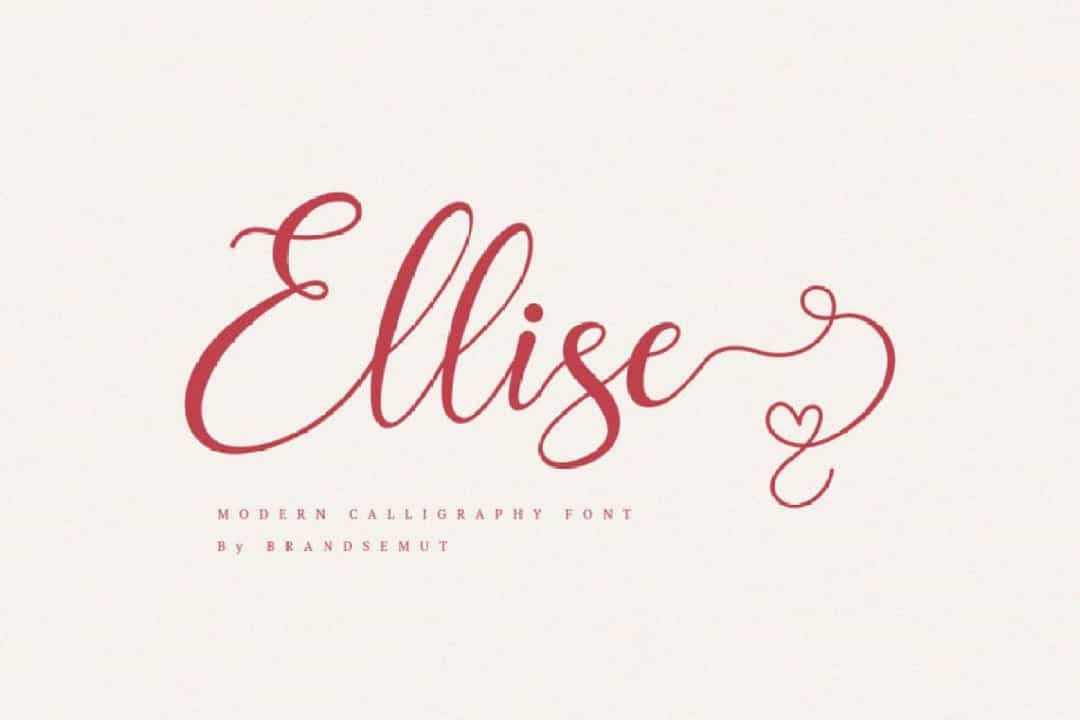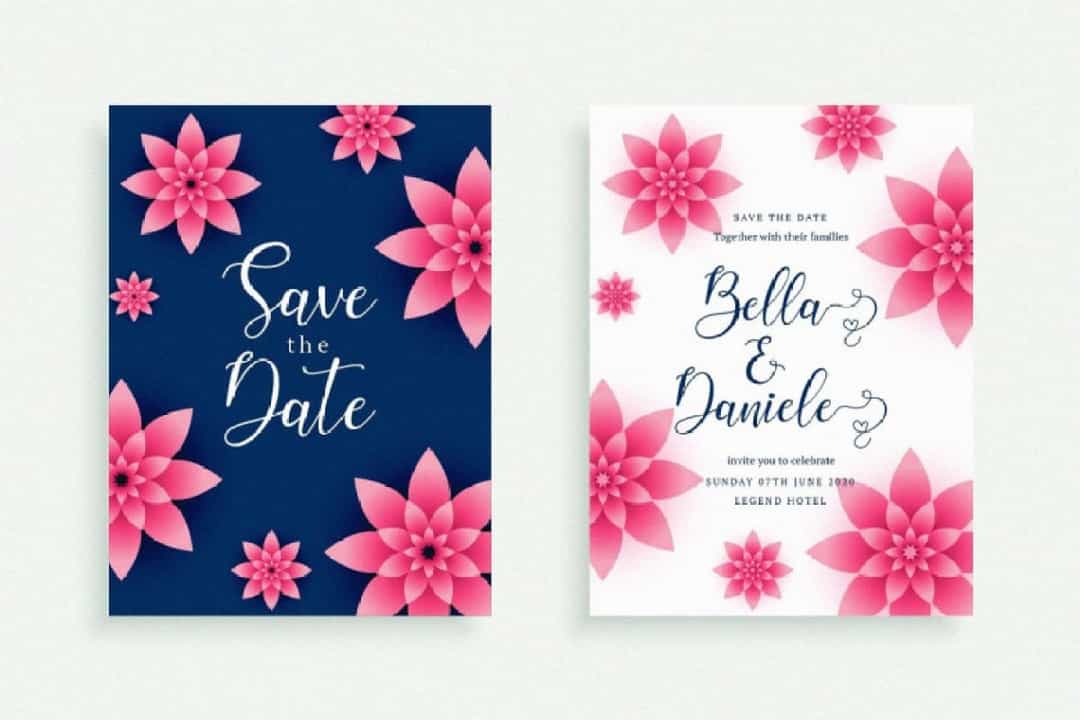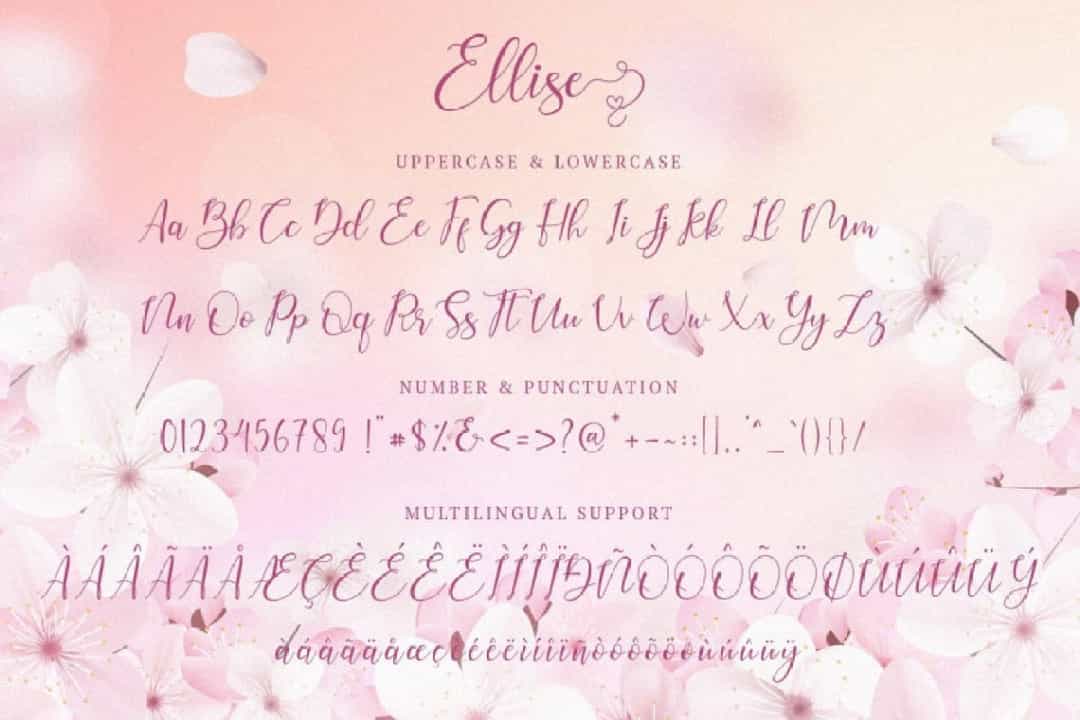
Discover Ellise Calligraphy Script Font, part of the Calligraphy Script collection—a versatile and unique font perfect for adding a personal touch to your projects. Download it for free and enjoy crafting designs with style, from invitations to social media posts. This font is available exclusively for personal use, giving you the freedom to create without limits. Unlock your creativity with Ellise Calligraphy Script Font today!
Here is presented the Ellise Lovely Calligraphy Script Font for you!!! Below you will find the list of the previews that you can click on and scroll through as well as the content of this pack – Lovely, Modern Romantic Beauty Feminine script fonts that I have created and I hope you will enjoy using! I hope that every time these fonts appear in your life it will be only for the good and with joy.